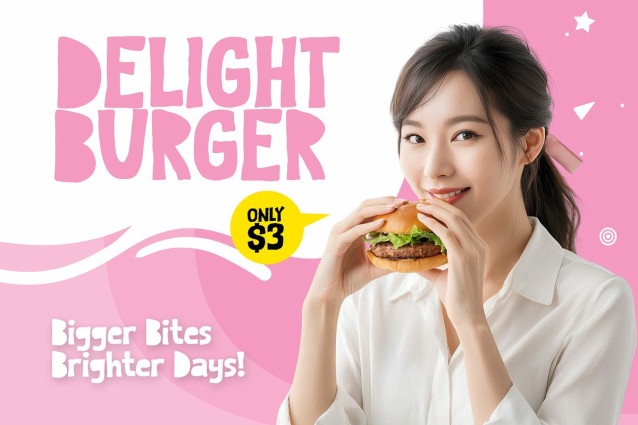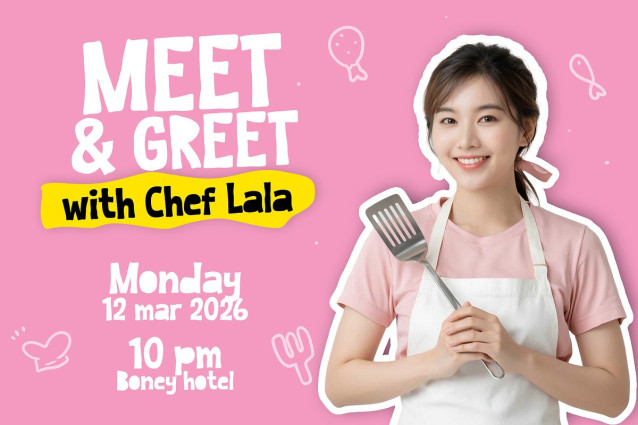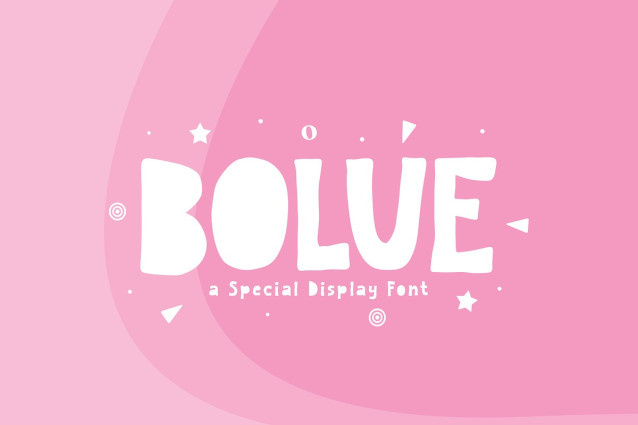
Bolue Font
Bolue Font a fun display typeface with cheerful theme for your fun project. Bolue font suitable for logo, branding, greeting card, poster and any design that you create.